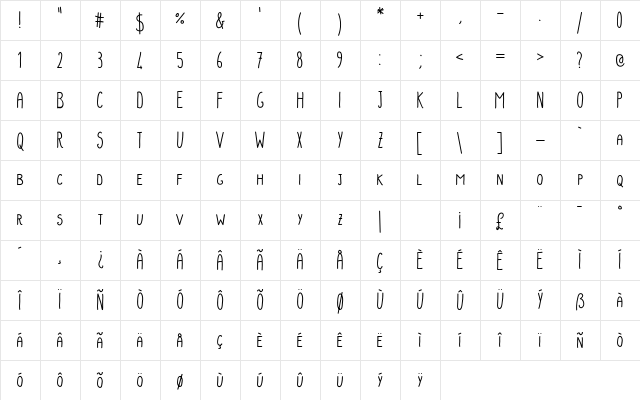
Potatoes And Peas Regular Free Font
Potatoes And Peas Regular
Design Context for Potatoes And Peas
Potatoes And Peas is a composed and adaptable typeface that performs quietly and consistently across a wide range of design contexts.